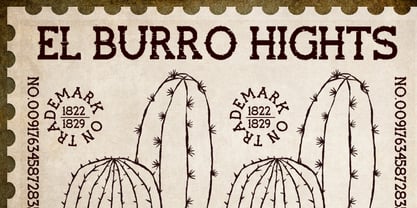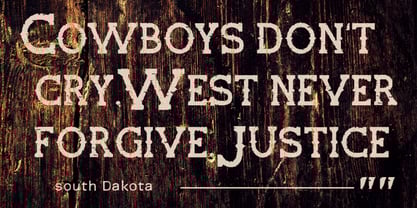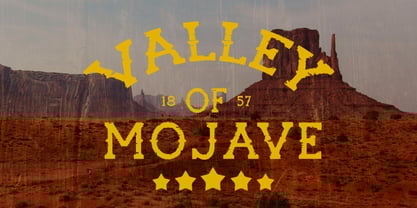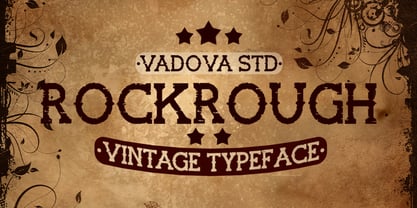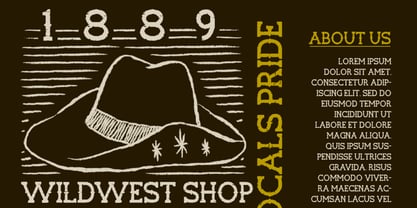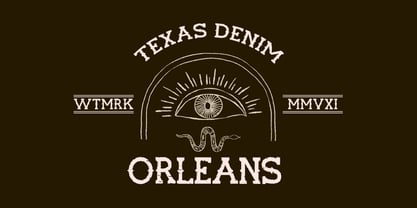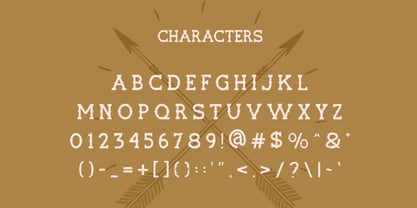
Rockrough
by Vadova Std
Elevate your designs with Rockrough Vintage Font, a bold vintage typeface inspired by classic western and grunge typography. With its rough, distressed edges and strong serif structure, this font embodies the rugged charm of old saloons, wanted posters, and rock band aesthetics. Ideal for whiskey labels, retro branding, and rustic-themed designs, Rockrough brings an authentic vintage feel to any project. Its weathered texture and sturdy form make it perfect for capturing a rebellious, nostalgic, and adventurous spirit.
Main Features
• Uppercase & Lowercase characters
• Numeral & Punctuations